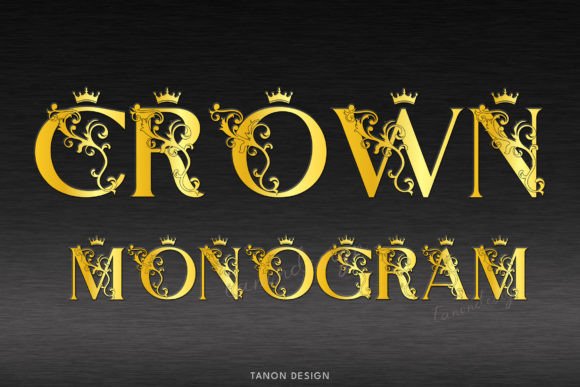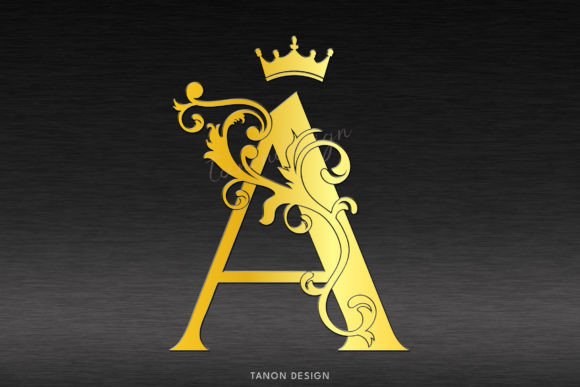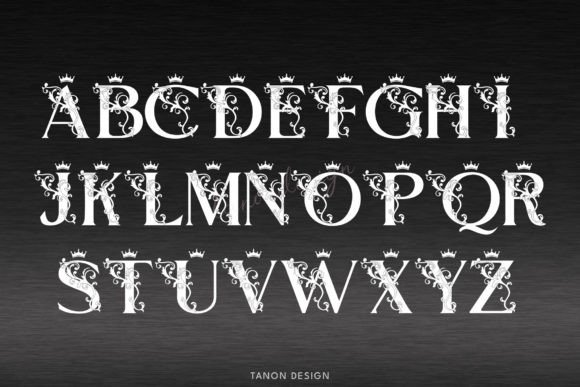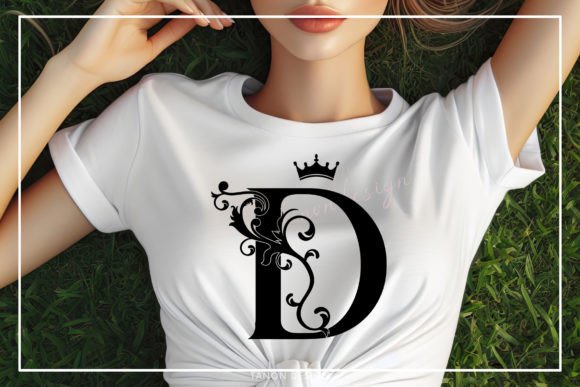
Crown Monogram Font
About the Crown Monogram Font
Let us introduce you to Crown Monogram Font, where timeless design meets modern craftsmanship. Crown Monogram is a stylish and elegant decorative font. Add it to your monogrammed items and you will love the results!
Crown Monogram’s elegant, decorative style makes it ideal for logos, short headlines, and high-end branding projects where a touch of sophistication is desired. It excels in creating a sense of luxury for invitations, stationery, or packaging designs. However, its ornate details are less suitable for body text or UI elements; the intricate letterforms would likely hinder readability in extended passages.
Its inherent elegance pairs well with clean sans-serif fonts like Montserrat or Lato for a balanced contrast, or with a classic serif like Garamond or Playfair Display for a more traditional feel. A delicate script font could also complement its refined nature, adding a layer of handwritten charm.
The overall personality of Crown Monogram is sophisticated and refined, conveying a sense of high quality and timeless style. It is best suited for brands that wish to project an image of exclusivity and understated luxury.
Crown Monogram Font Usage Examples
Crown Monogram Font Example